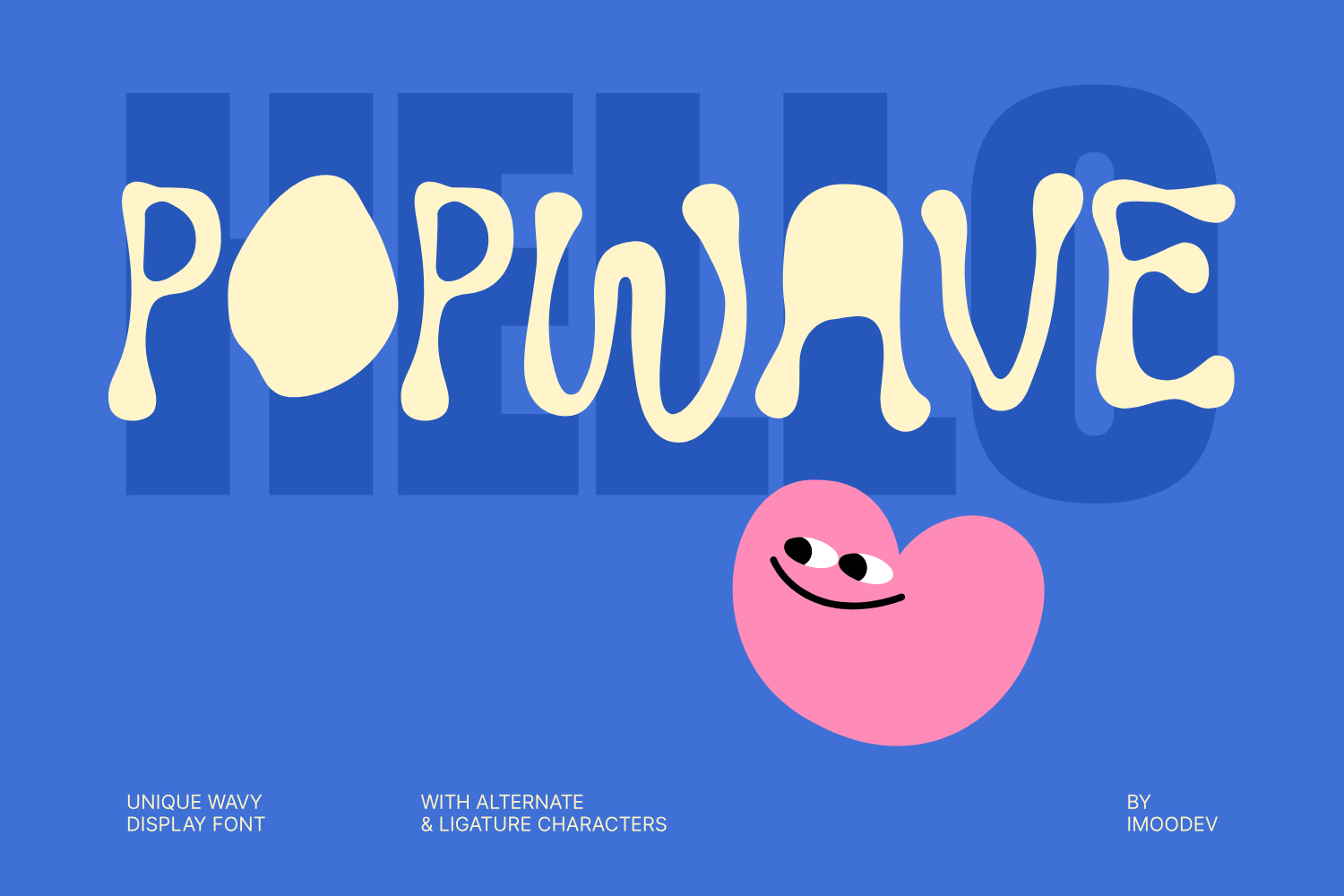
Popwave - Wavy Liquid Display Font
Catch the ultimate vibe with Popwave, a delightfully eccentric, liquid inspired wavy font designed to inject pure energy and personality into your creative projects. Popwave breaks all the traditional rules of typography with its fluid, melting lines and playful, top heavy distortion.
Popwave features wavy letterforms with a hand-drawn retro aesthetic. Each character is crafted with organic curves, irregular contours, and bubbly silhouettes that evoke a fun and carefree personality. The font includes a full set of uppercase and lowercase letters, numerals, punctuation, multilingual support, and a wide range of alternate characters and ligatures for creating unique typographic compositions.
Popwave ideal for posters, branding, packaging, album cover (indie, pop, lo-fi, or electronic album art), merchandise, headlines, and youth oriented designs. Its bold and unconventional shapes add warmth, energy, and a nostalgic 70s psych rock, trendy Y2K streetwear aesthetics, or modern 3D balloon text styles, this font morphs effortlessly to fit your vision.